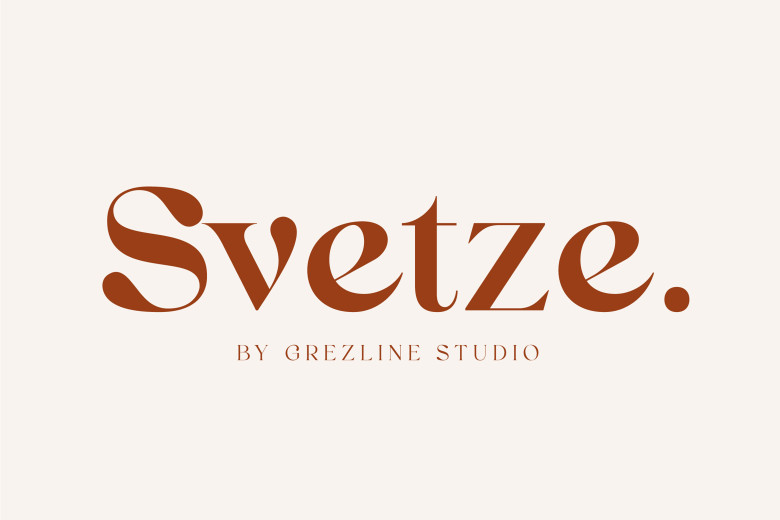
Svetze Font
Svetze is an elegant display serif font family comprised of four weights. While initially intended to be used in fashion, this font can also be utilized for other purposes like labels, logos magazines, books greeting or wedding cards packaging novels stationery labels etc.
Svetze Serif Font